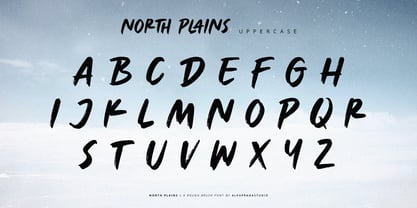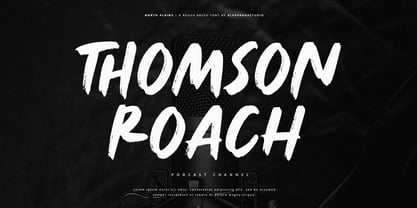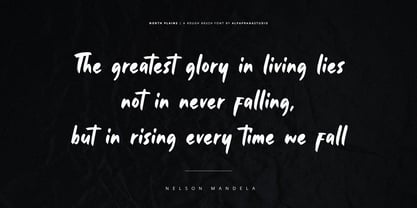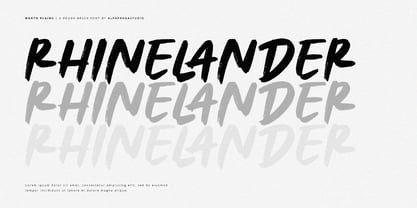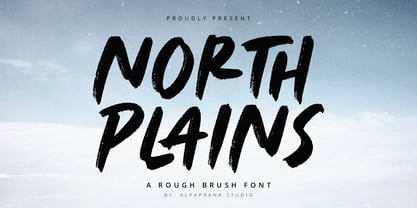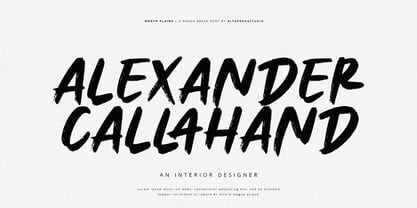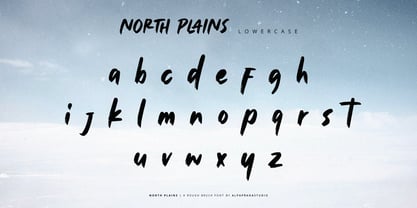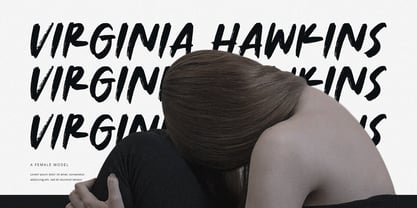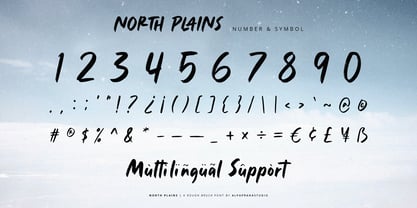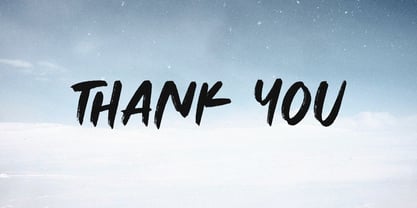
North Plains
por Alpaprana
La familia tipográfica North Plains fue diseñada por Nadia Salsabila y publicada por Alpaprana. North Plains contiene 1 estilos. Más información sobre esta familia
North Plains is a rough brush font with natural and modern feels. It will be perfectly used for Branding, Logo Design, Lettering, Logotype, Clothing, Poster, magazine, packaging, posters, shopping bags, t-shirts, book covers, photography, special events and other design project.
Diseñadores: Nadia Salsabila
Fundición: Alpaprana